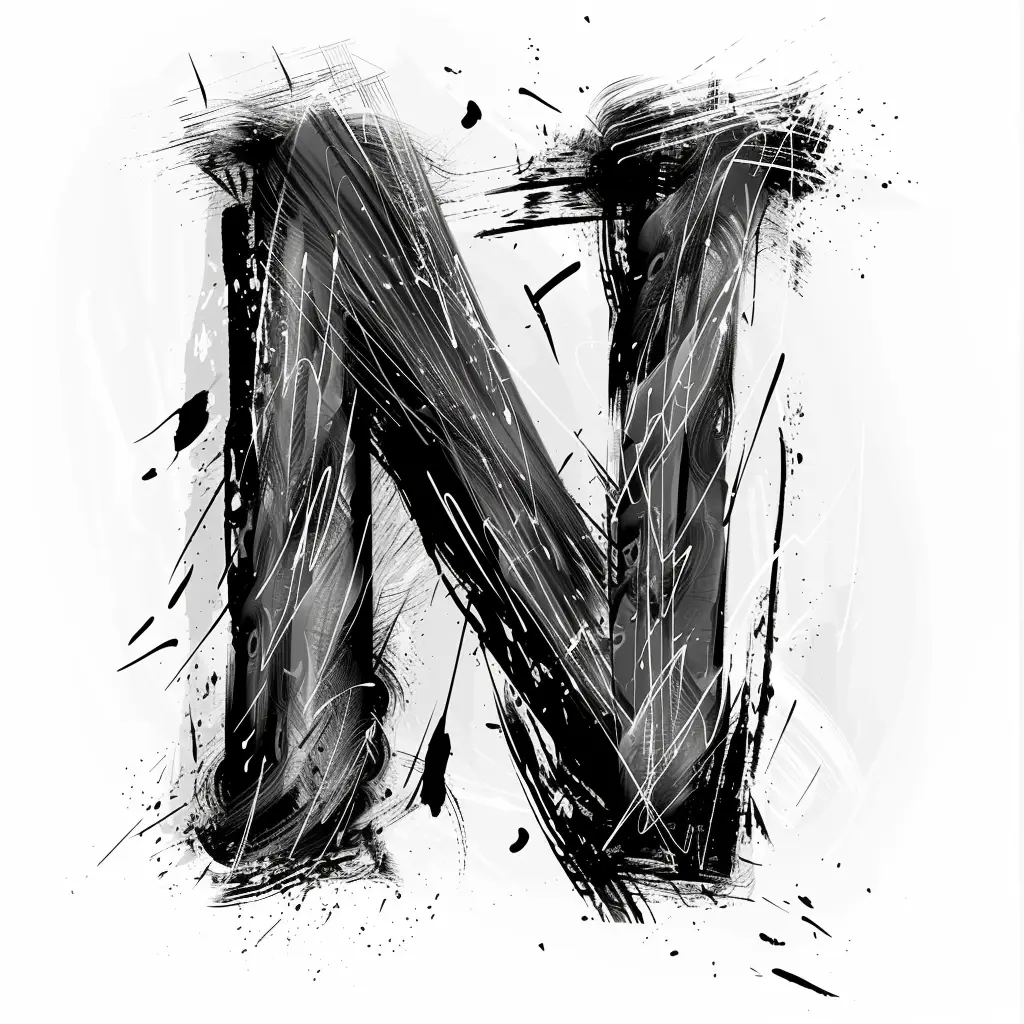
The image features a stylized, artistic representation of the letter "N," rendered in bold black and white. The design employs dynamic brushstrokes, splatters, and fine white lines, creating a textured, abstract effect with a raw, expressive aesthetic. The monochromatic palette emphasizes contrast, highlighting the letter’s bold form against a light background.